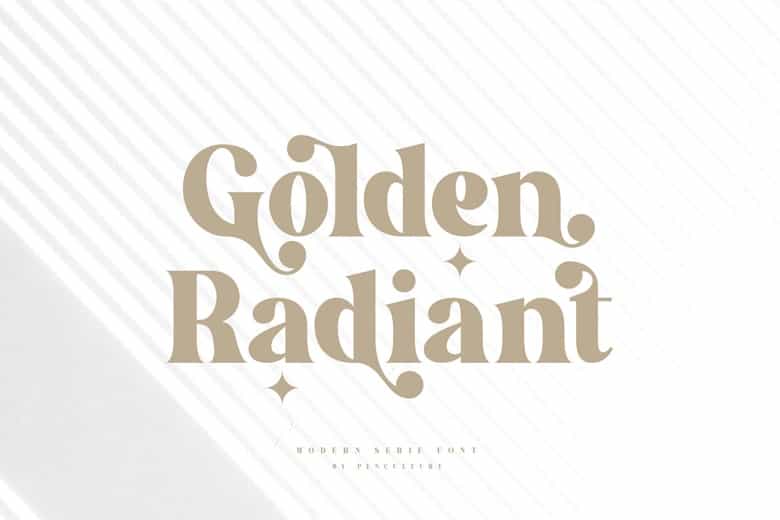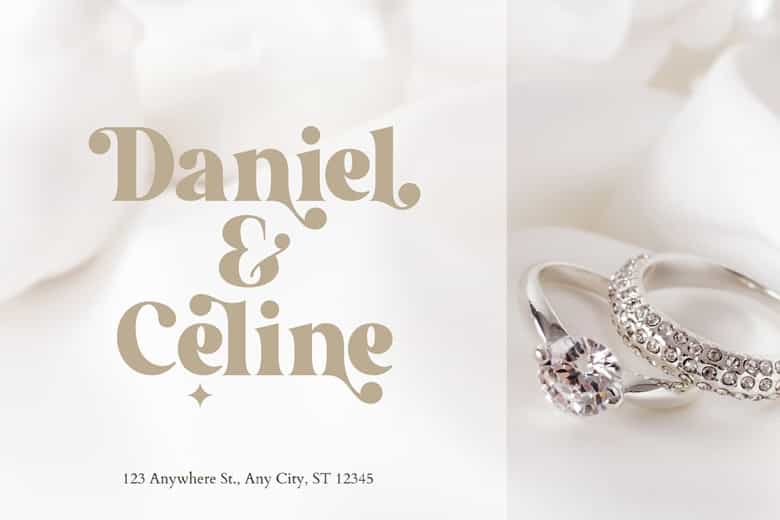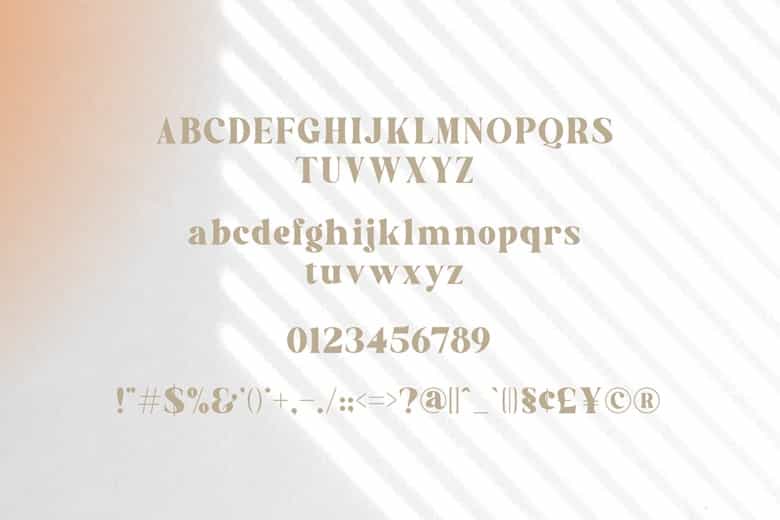
Discover Golden Radiant Font, part of the Serif collection—a versatile and unique font perfect for adding a personal touch to your projects. Download it for free and enjoy crafting designs with style, from invitations to social media posts. This font is available exclusively for personal use, giving you the freedom to create without limits. Unlock your creativity with Golden Radiant Font today!
Golden radiant is a new serif typeface that has curves on each letter and it also has alternate characters. Therefore it is suitable to be applied in any form of designs like branding logos, magazine, posters, invitation and many more. This font comes with elegant uppercase and lowercase letters, numbers, and punctuation, and 60 elegant alternate.